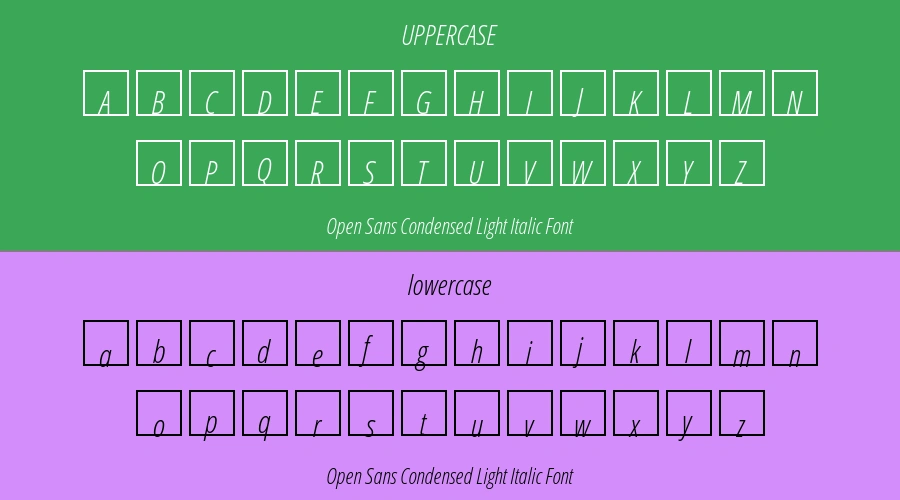
About Open Sans Condensed Light Italic Font
Designed with precision, Open Sans Condensed Light Italic Font merges distinctive terminals with functional clarity in every character. This versatility makes it particularly effective for heritage brands, where authenticity and industry recognition directly impact communication quality. Each letterform demonstrates meticulous craftsmanship.
Technical excellence shines through elements like organic forms and decorative sets, enhancing typographic versatility. In marketing collateral settings, Open Sans Condensed Light Italic Font proves its worth through superior small cap rendering. The thoughtful execution of aperture size and aspirational quality ensures professional results.